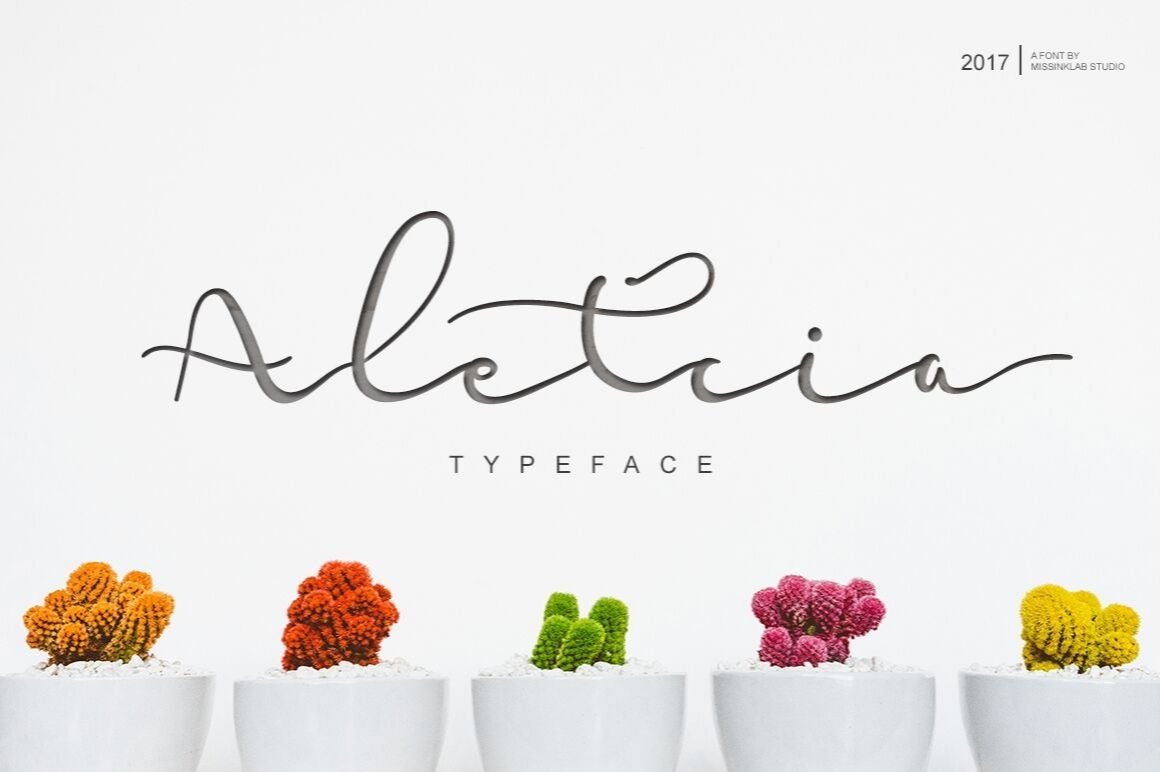
Aletcia Free Fonts
Aletcia is a beautiful script-free font for commercial use. With modern script style, this font will be perfect for many different design projects like: quotes, blog headers, posters, weddings, branding, logos, fashion, apparel, letters, invitations, stationery, etc.